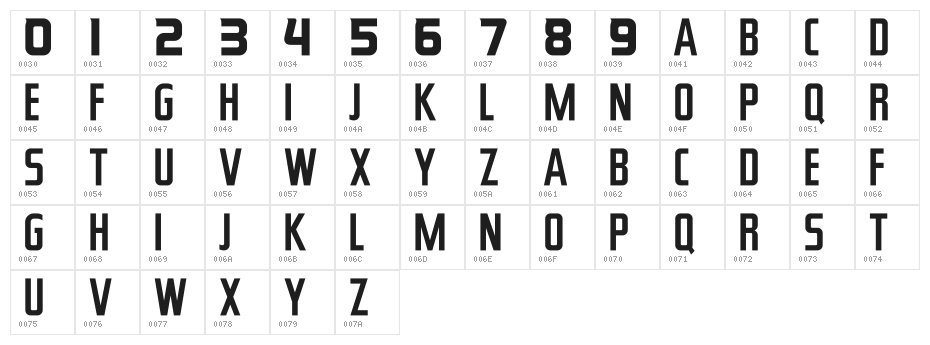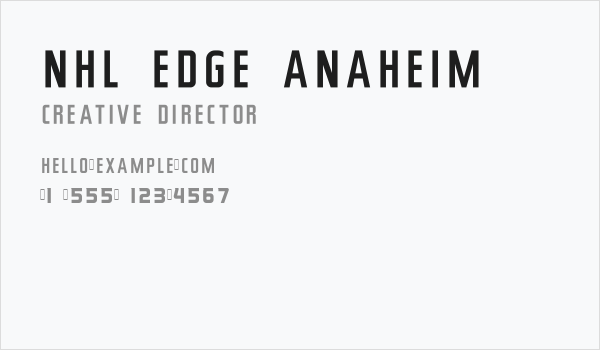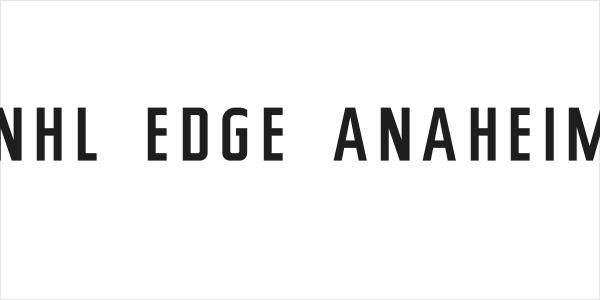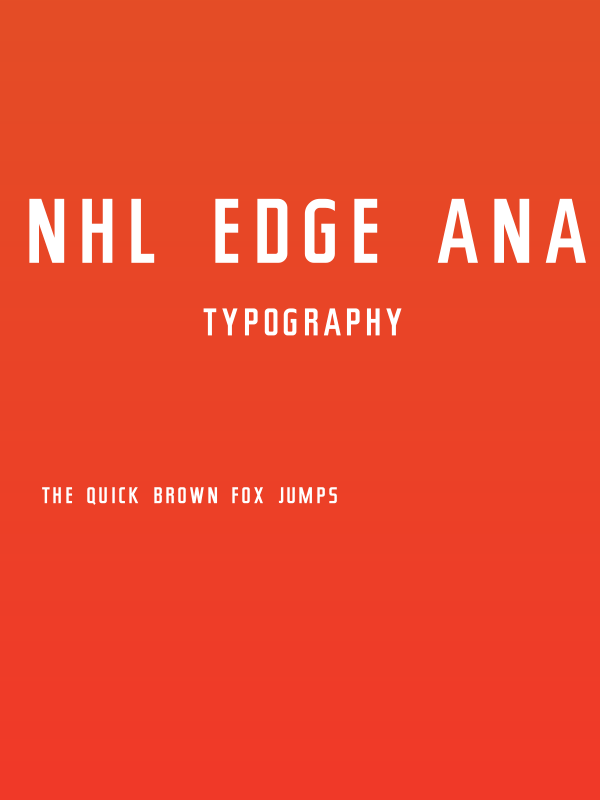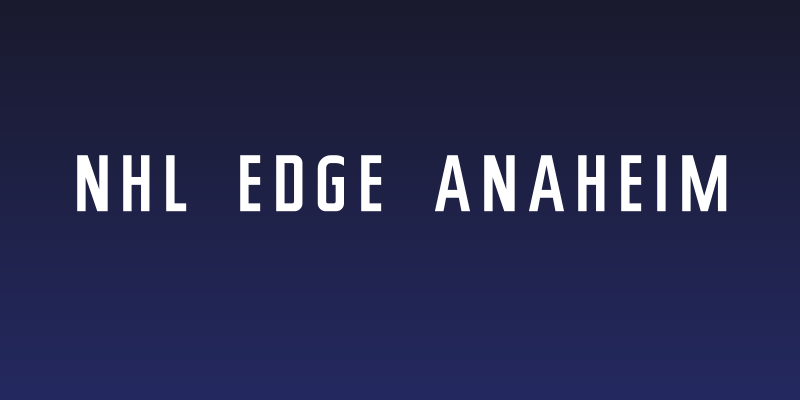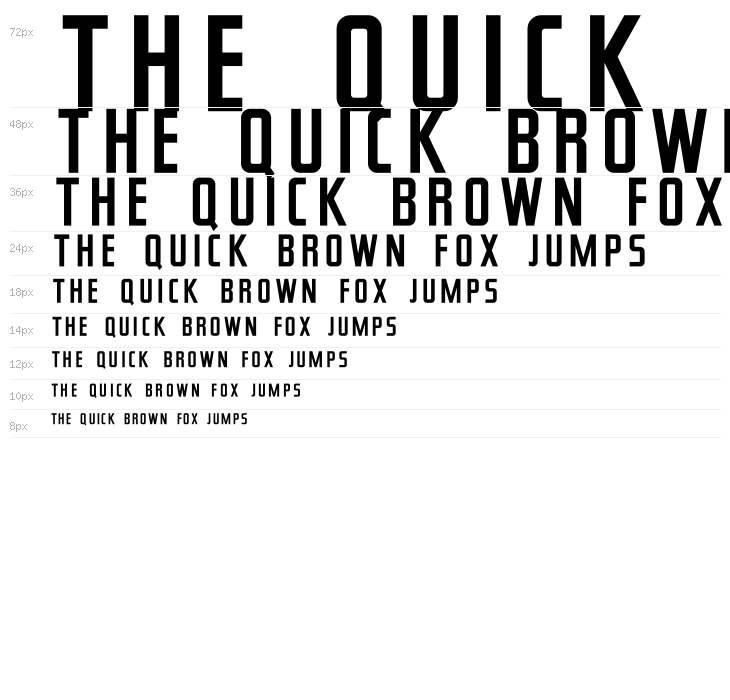
NHL Edge Anaheim Font
NHL Edge Anaheim Description
This font features a bold and modern design with a strong geometric structure. The characters are tall and narrow, giving a condensed appearance that is both sleek and assertive. The uppercase letters are uniform in height, with sharp angles and clean lines that convey a sense of precision and strength. The numerals are similarly styled, maintaining the font's cohesive look. The absence of serifs and the uniform stroke width contribute to its contemporary feel, making it suitable for impactful headlines and branding. The font's overall aesthetic is dynamic and professional, ideal for sports-related designs or any project requiring a bold statement.
| Proposed Projects | Ideal for sports branding, headlines, posters, and dynamic graphic designs. |